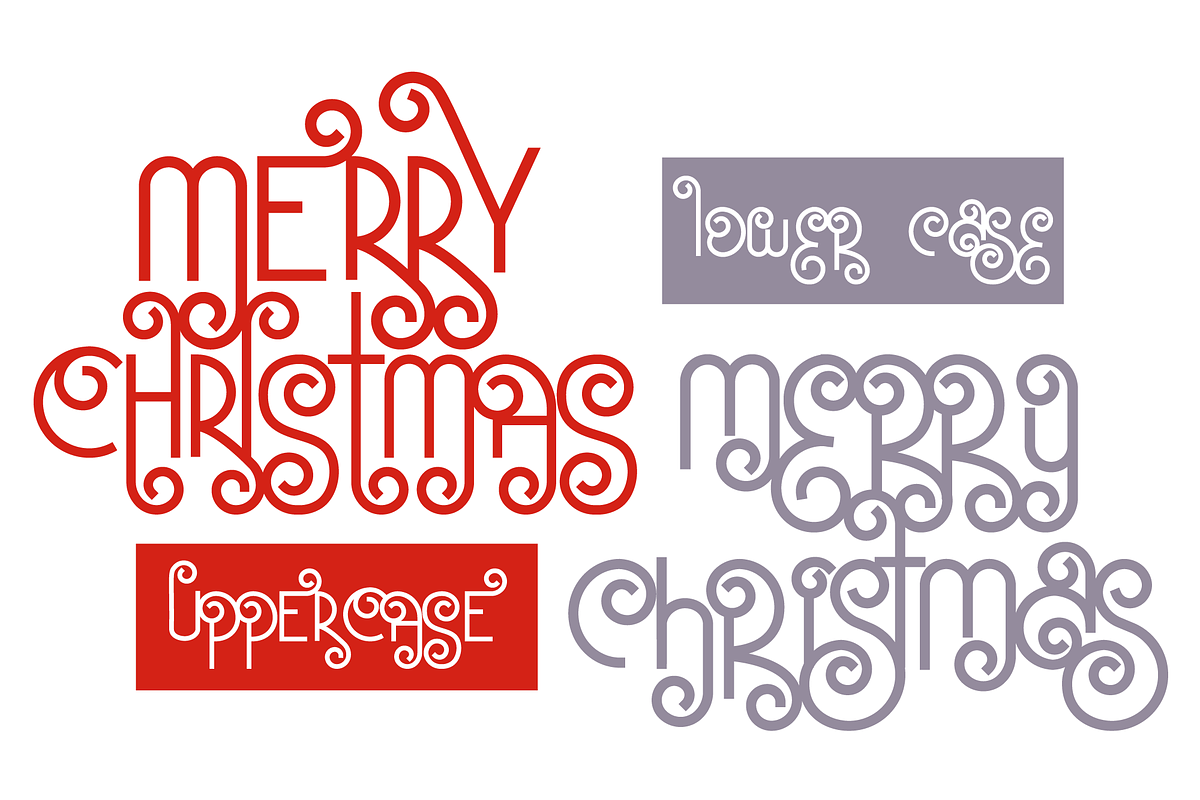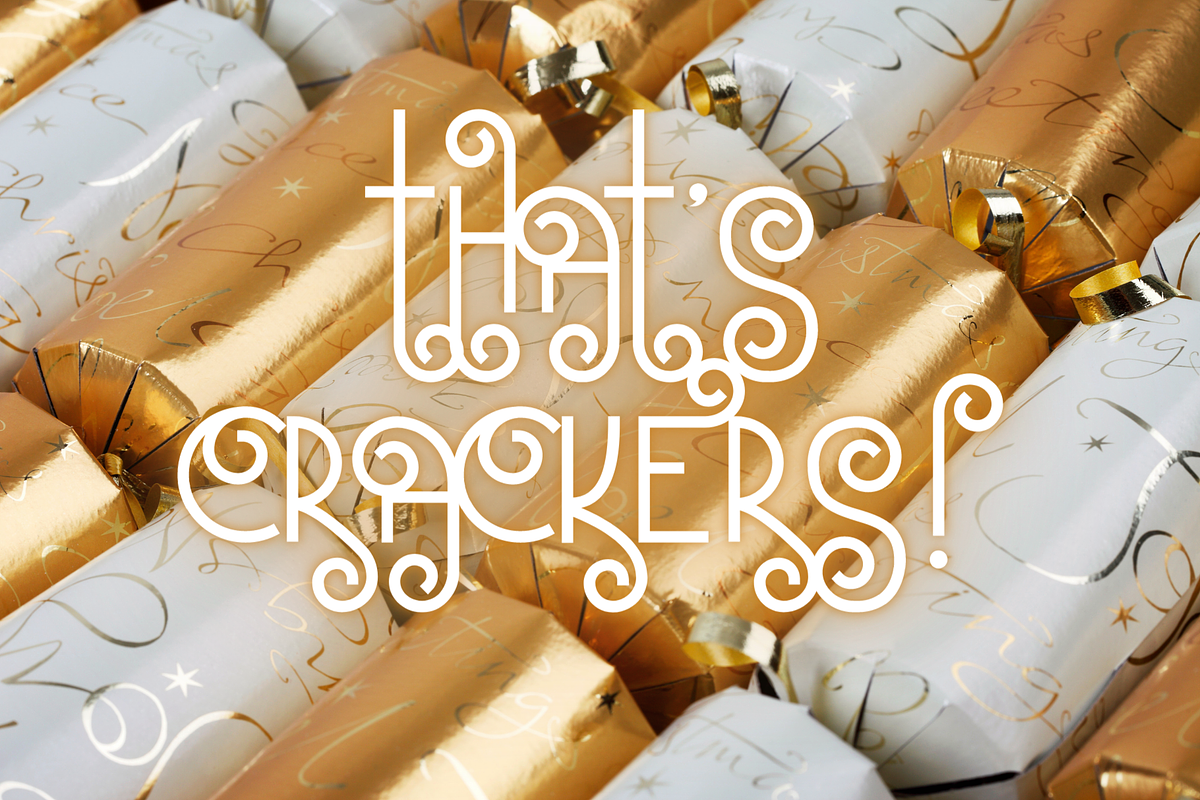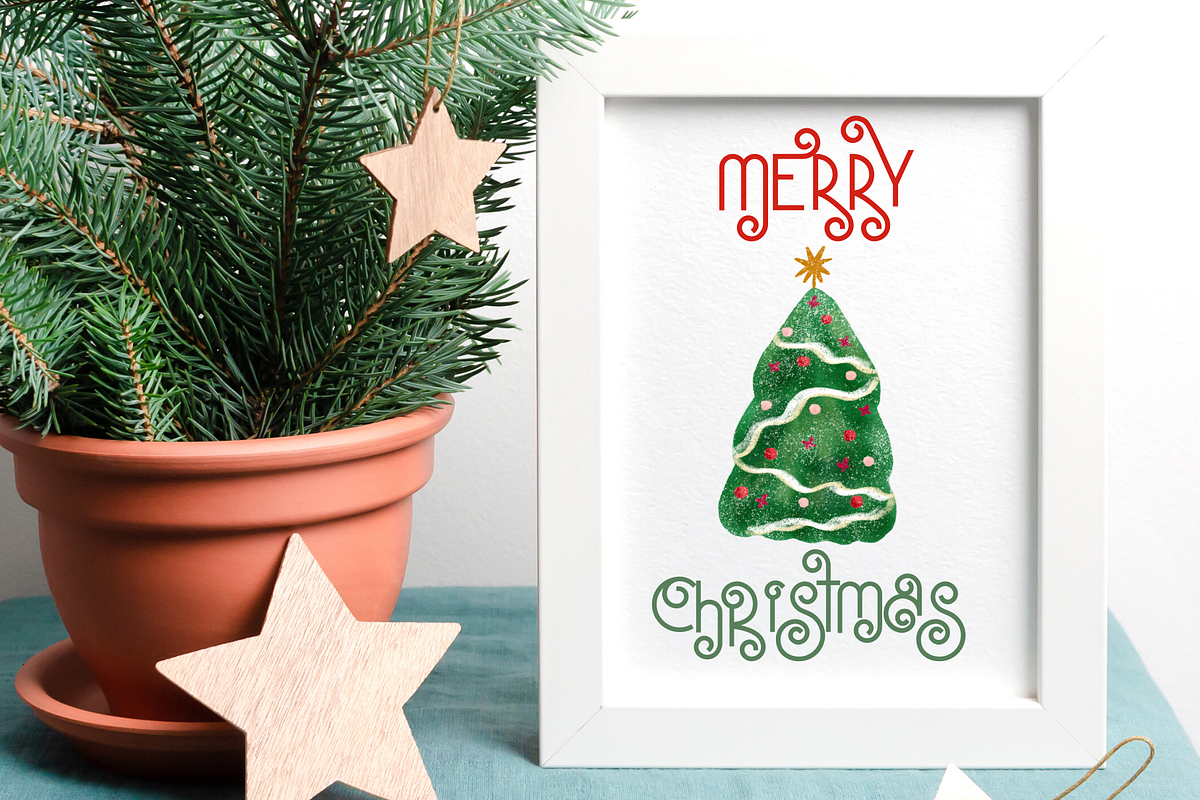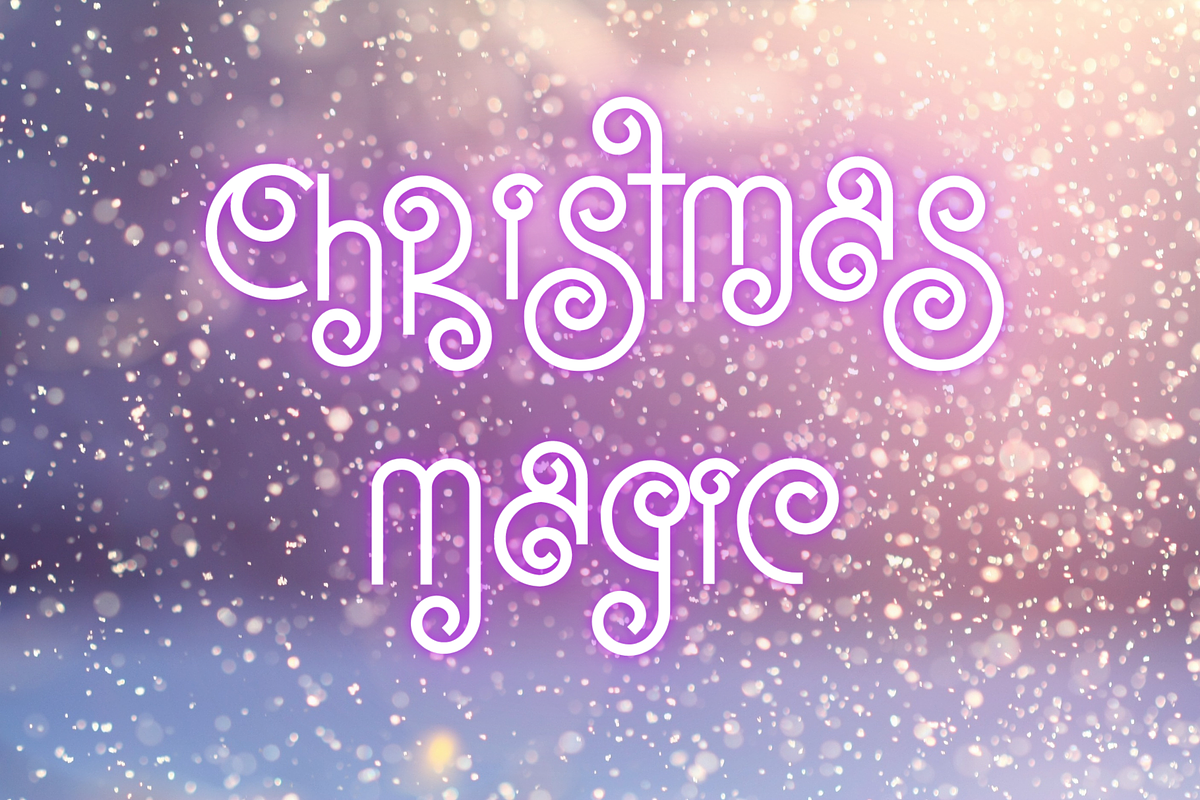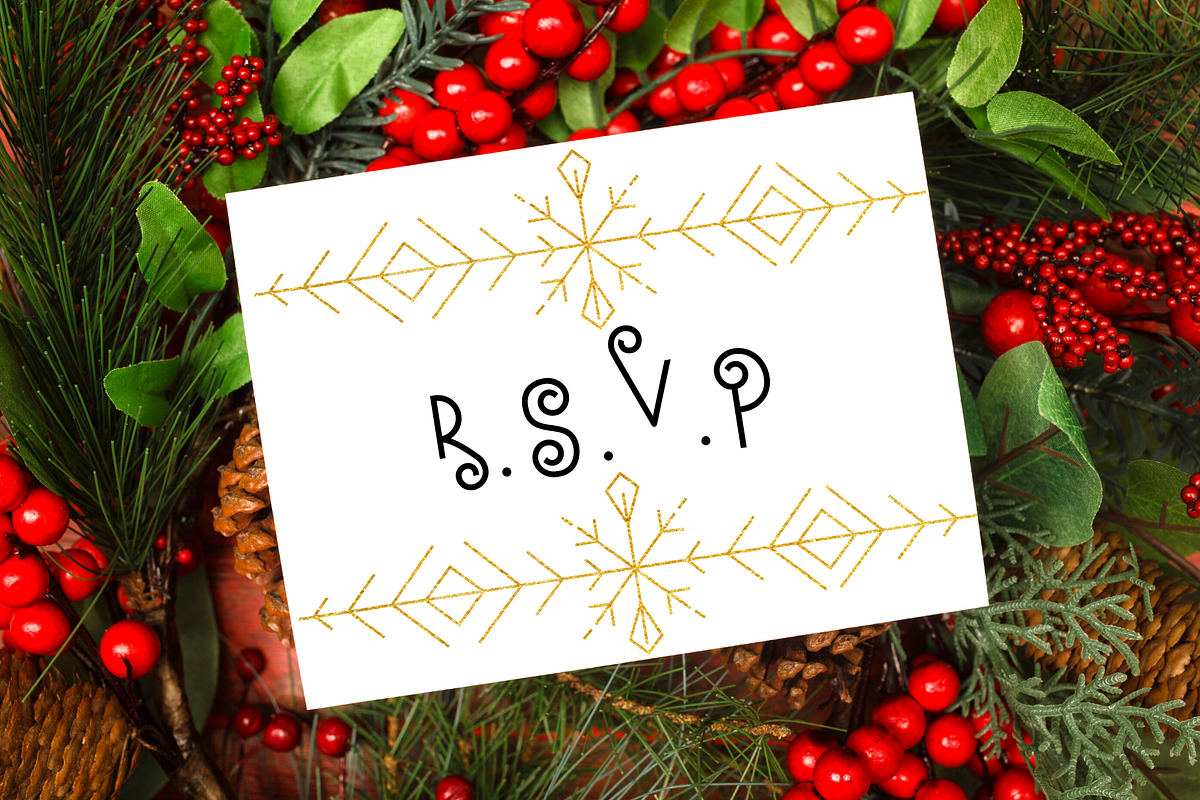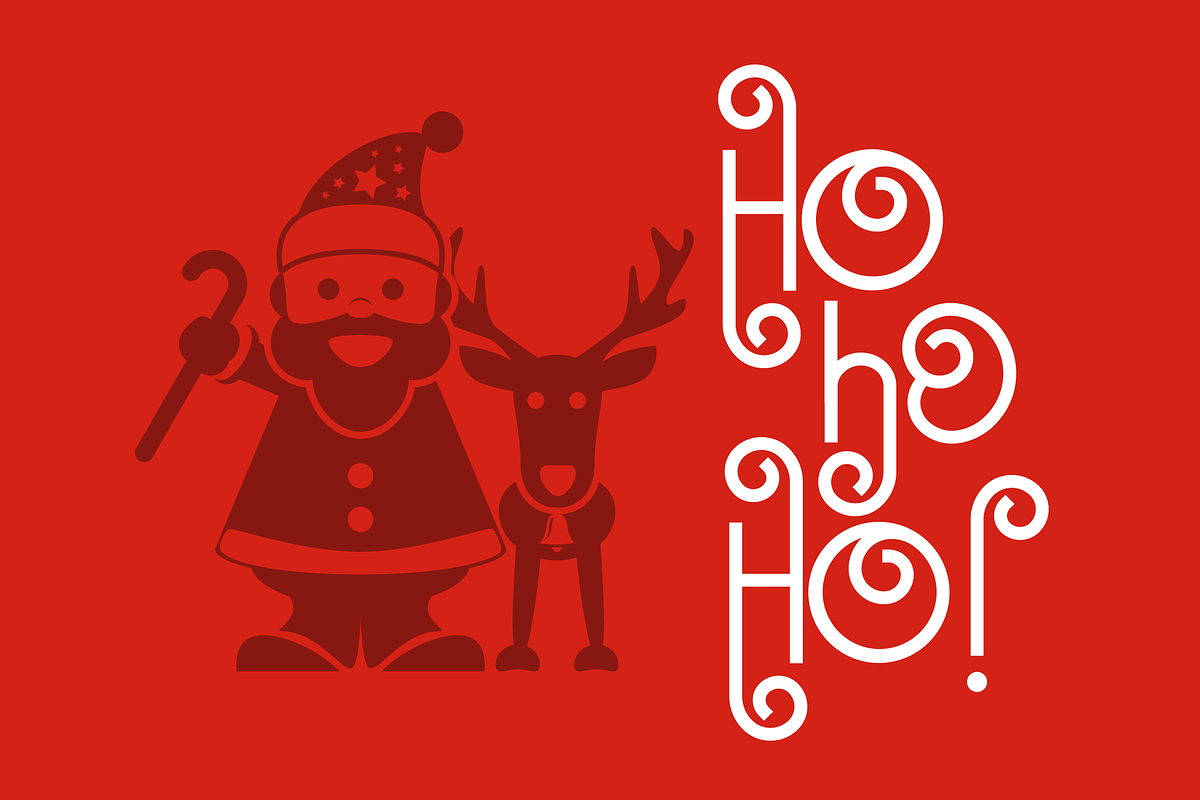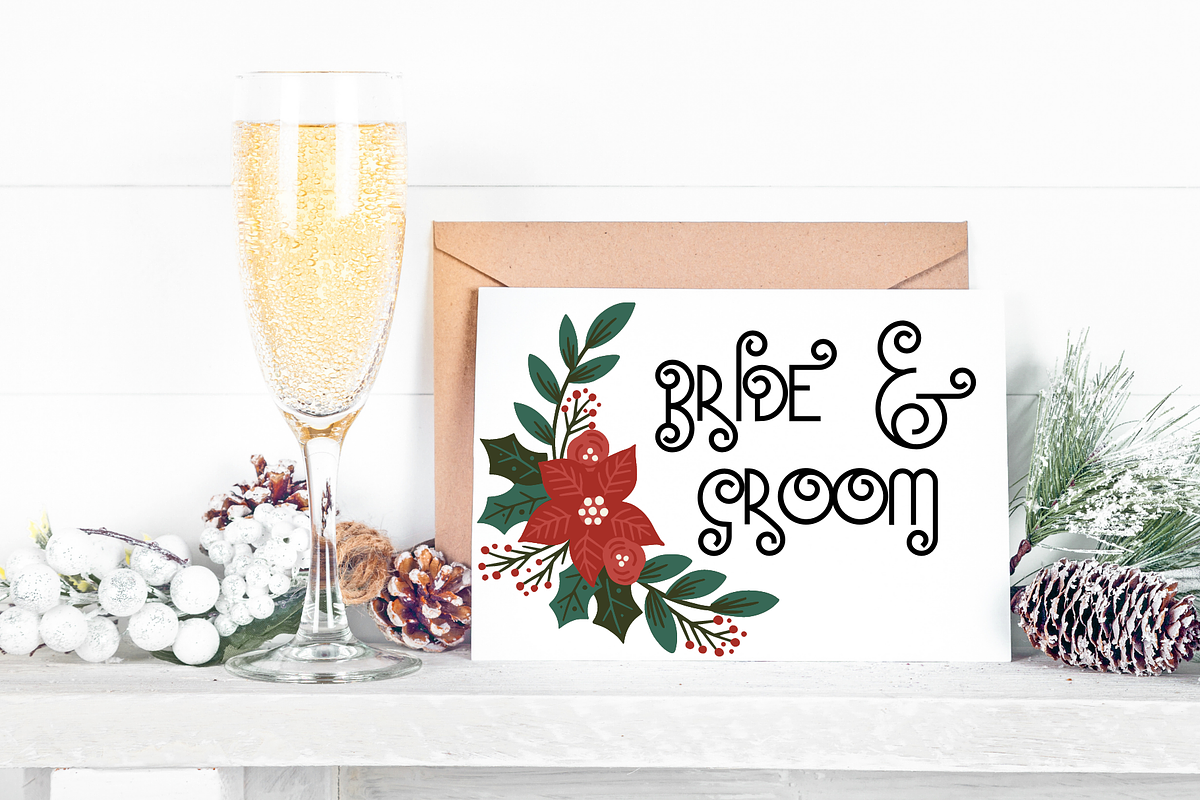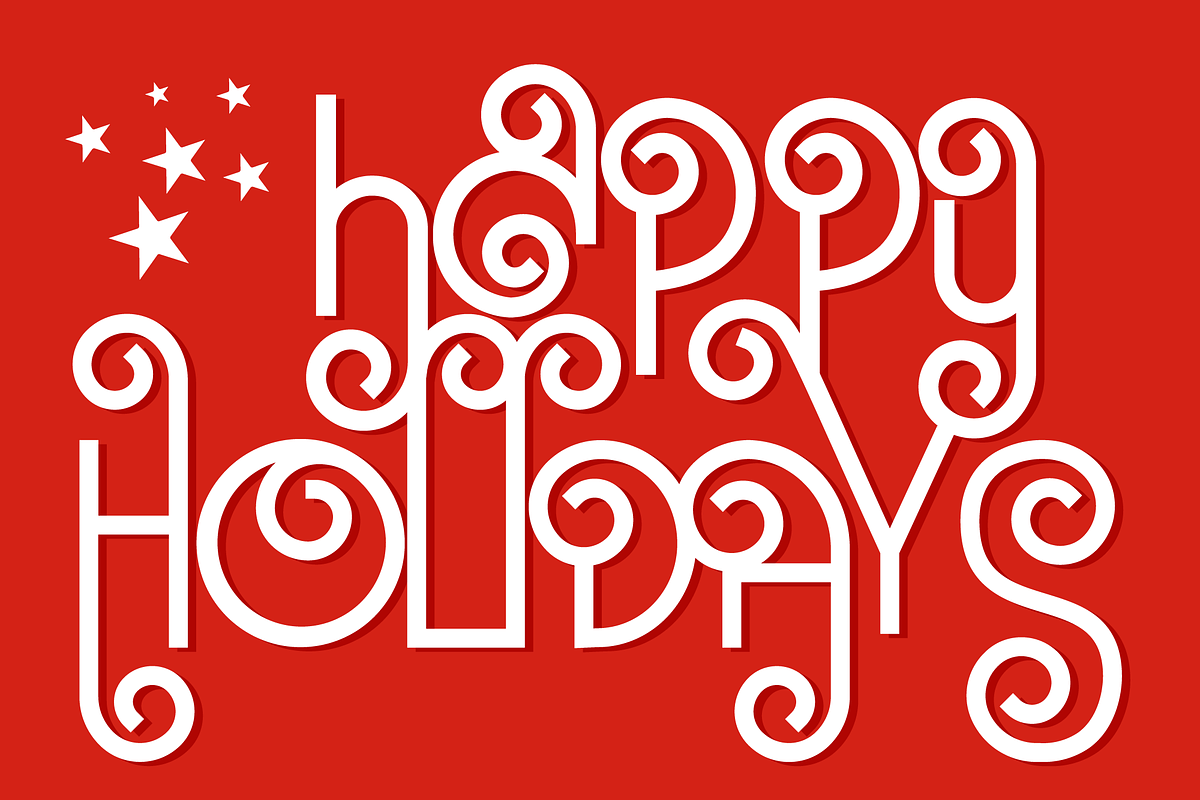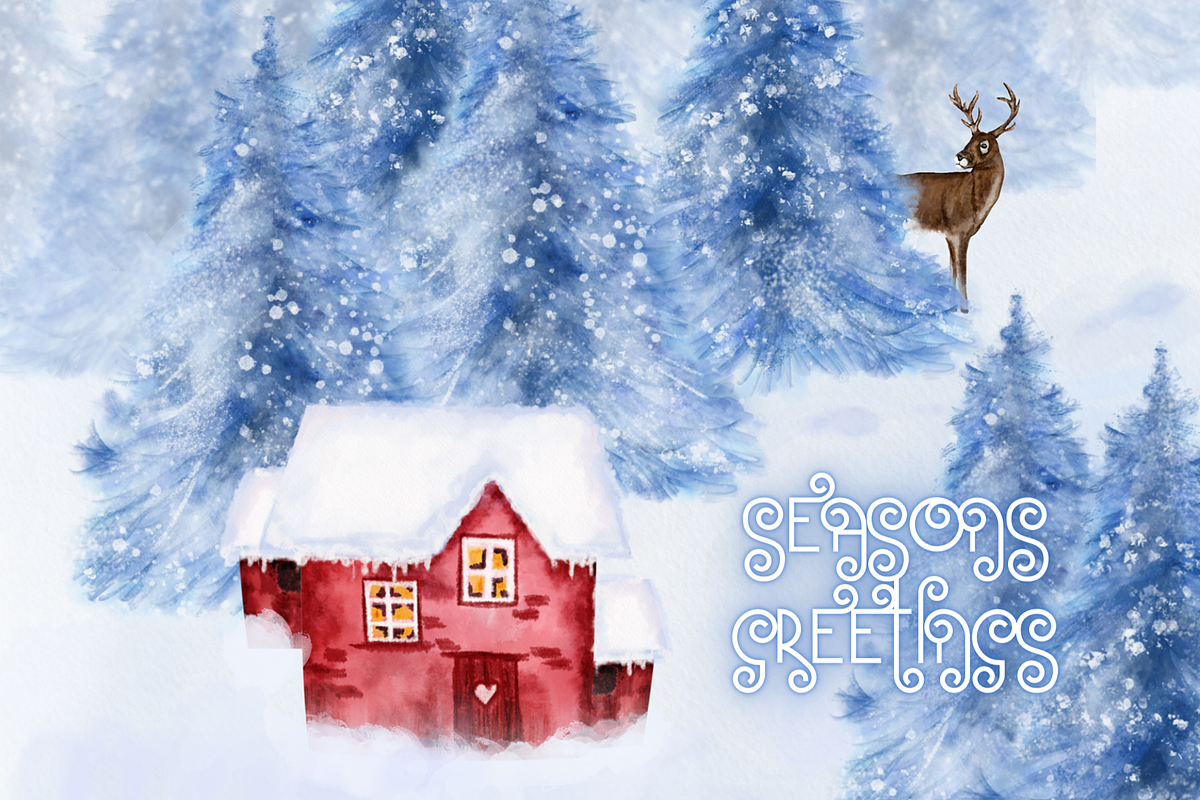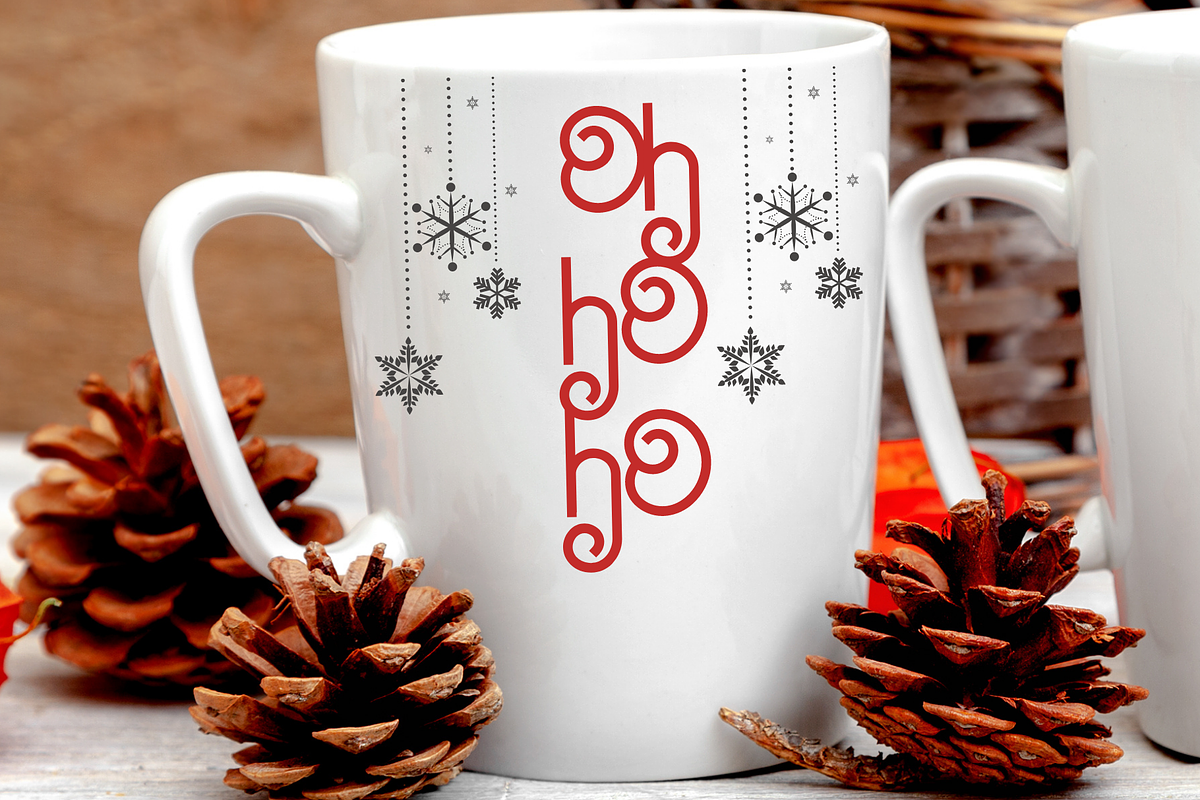
Santa's Beard Curly Christmas Font
Introducing our new Christmas font inspired by Santa's curly beard.
This festive font will give your designs a unique and whimsical vibe and works particularly well for Christmas quotes or punchy headlines.
Santa's Beard started life as a simple doodled quote that I wanted to make into a quick uppercase only font in time for the fast approaching holidays. The font had other ideas and quickly evolved to encompass upper and lowercase letters, along with several unique ligatures.
My favourite part of the font making process is getting all the letters to play nicely together - this font was more of a challenge than most but I feel the finished product is all the better for it.
The exaggerated ascenders and decenders provide plenty of opportunities to align text in interesting ways for quotes, flyers, Christmas cards, or festive party invitations. I have designed the font so that upper and lowercase can be mixed freely and lowercase letters are essentially stylistic alternatives.
I was surprised to find that the finished font had an Art Deco vibe, especially the uppercase letters when used alone. Although Santa's Beard is a Christmas font by design it lends itself nicely to unique branding or logo designs where a vintage or whimsical feel is desired.